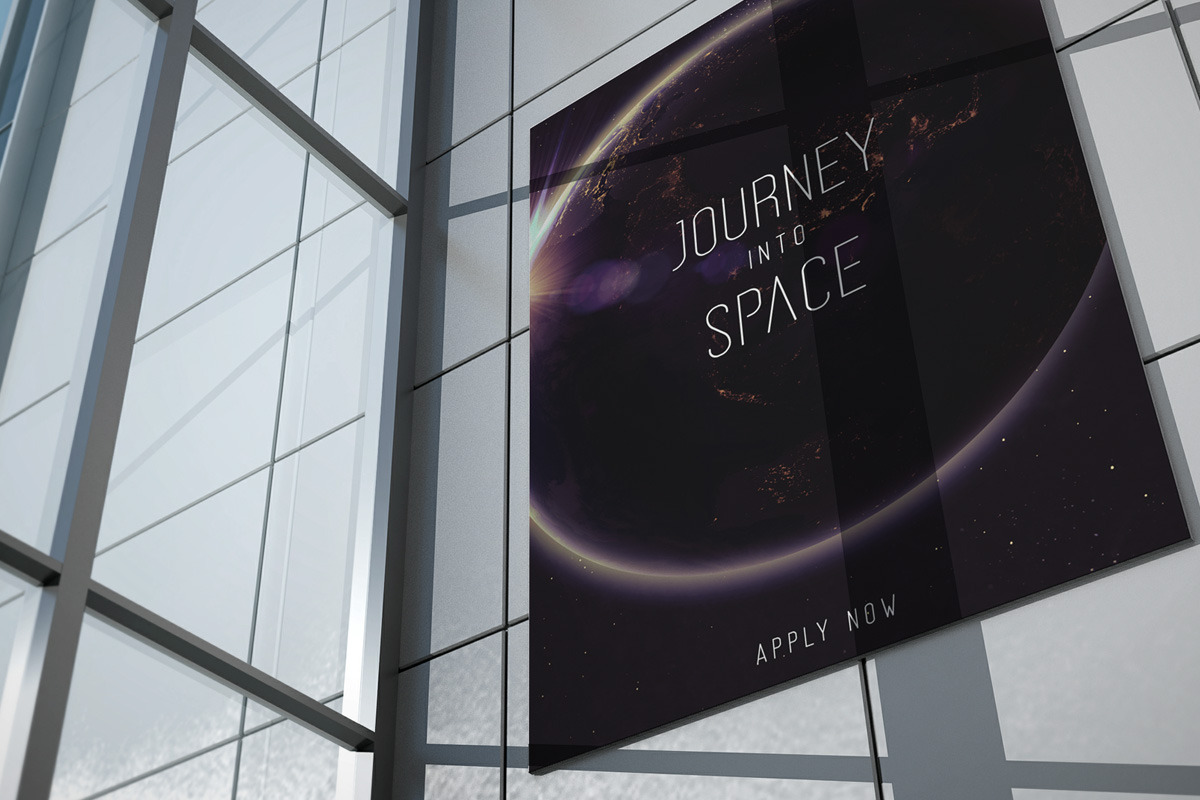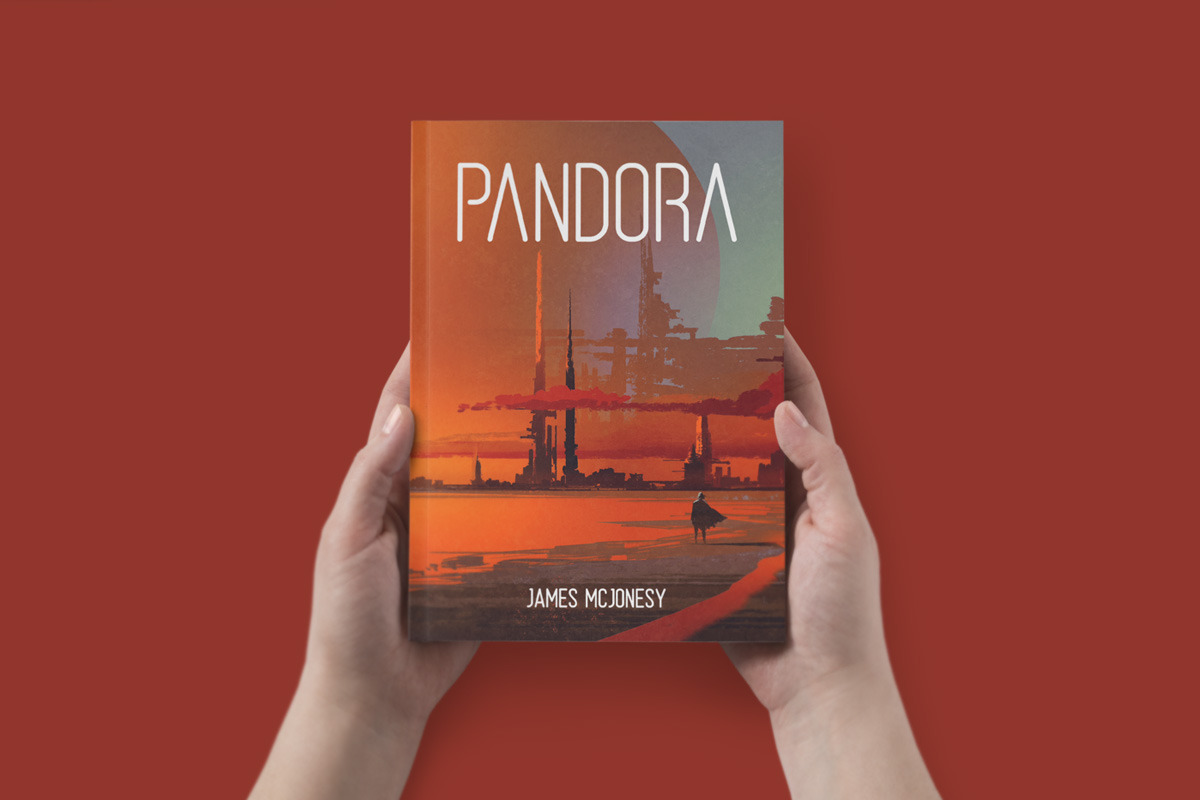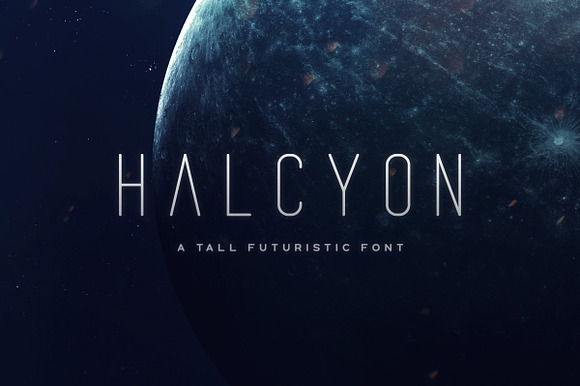
Halcyon Typeface
Halcyon is a tall, rounded futuristic typeface that comes in two weights. The alternate letters can be toggled via Caps Lock.
- The alternate letters can be toggled via Caps Lock.
- Halcyon Thin
- Halcyon Regular
Why Halcyon Typeface is worth a look
Halcyon Typeface by Tugcu Design Co. fits naturally into Branding, posters, packaging, typography.